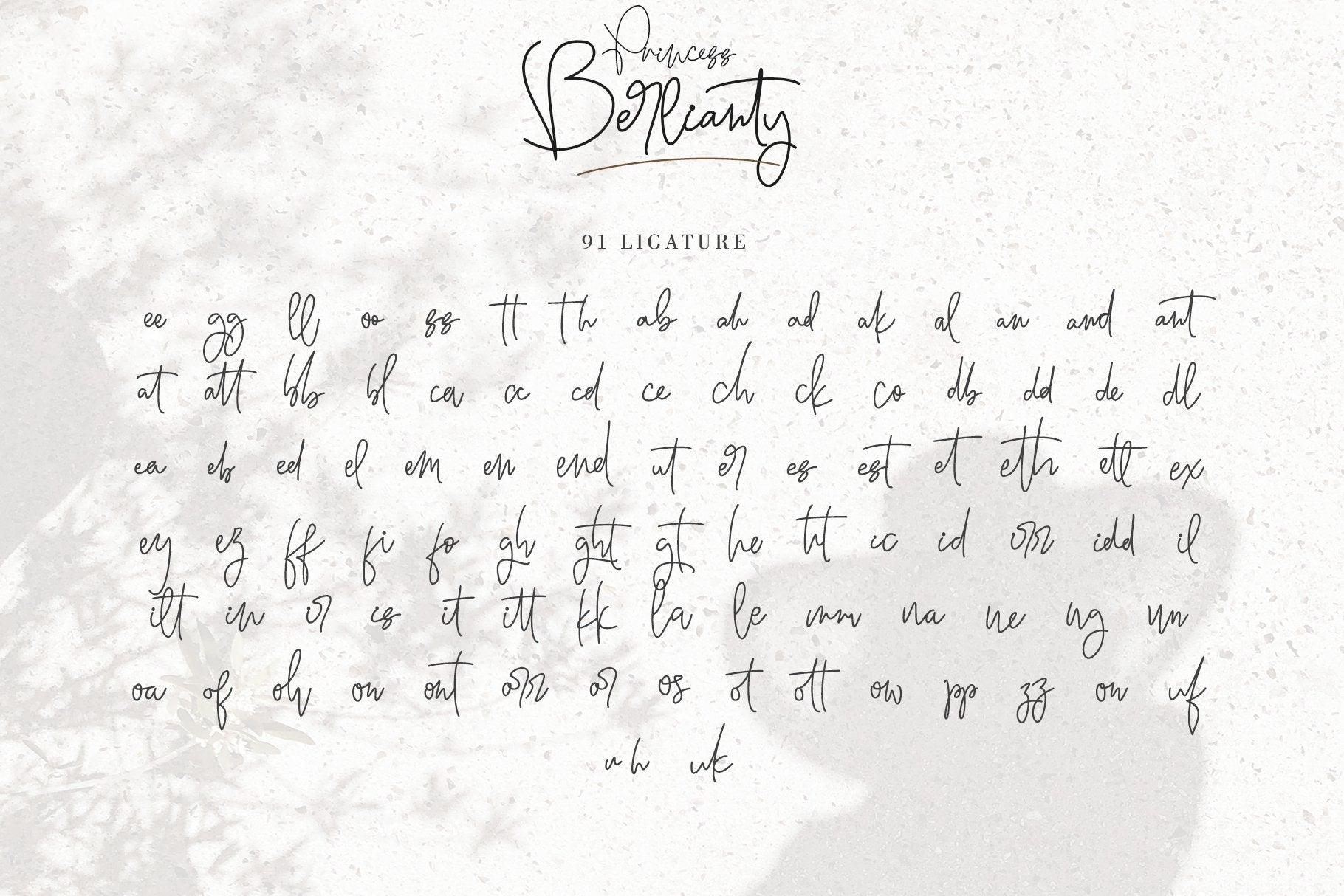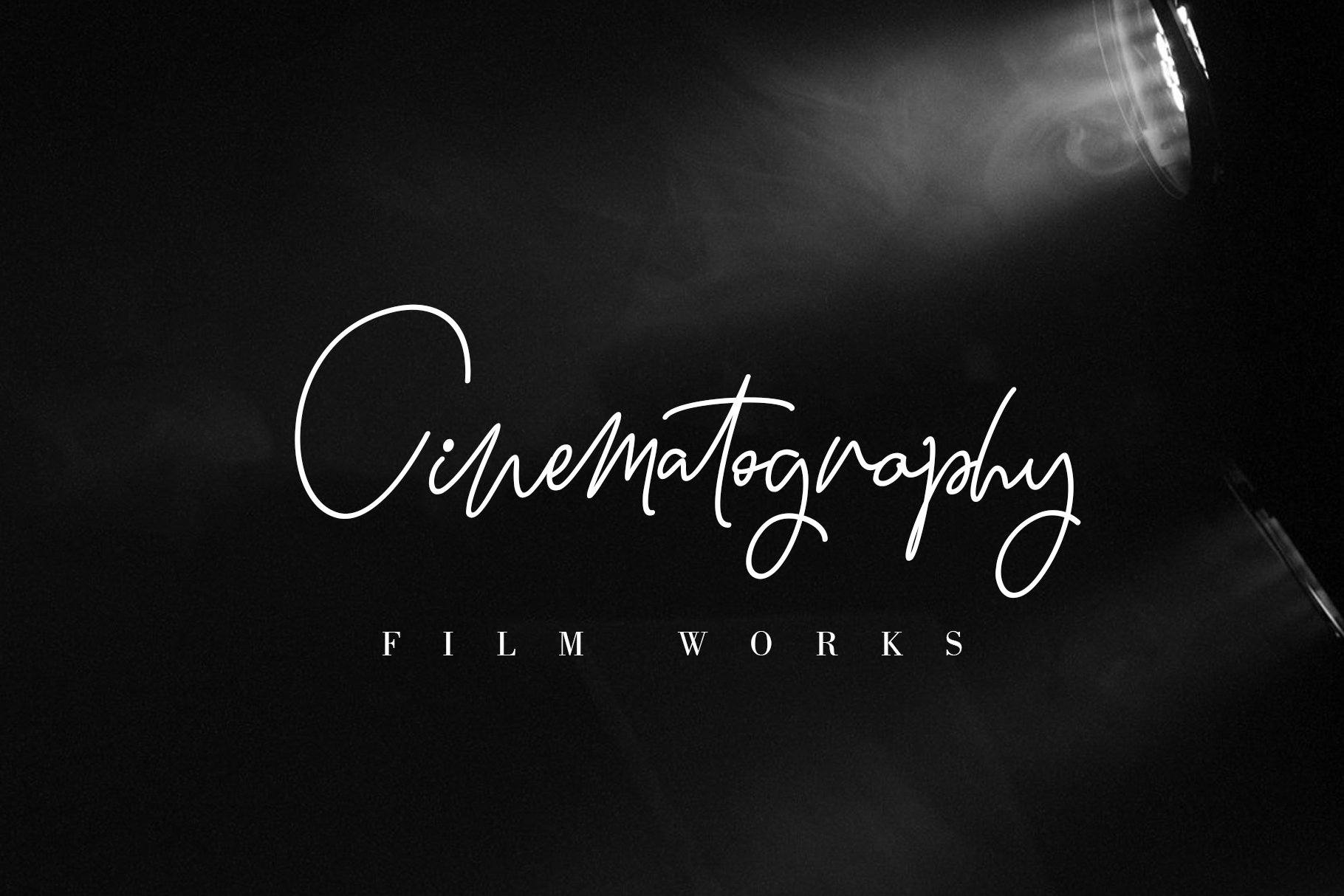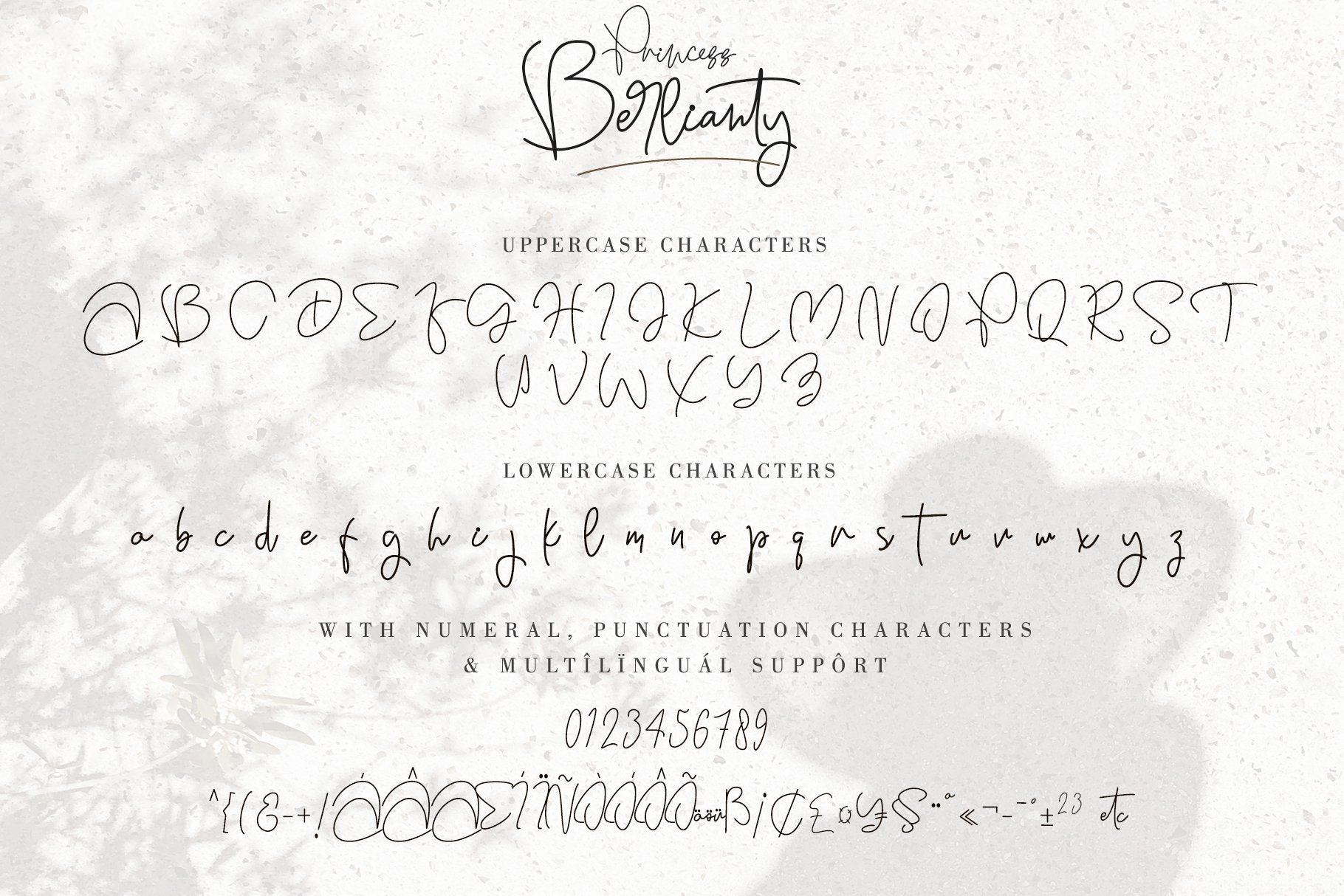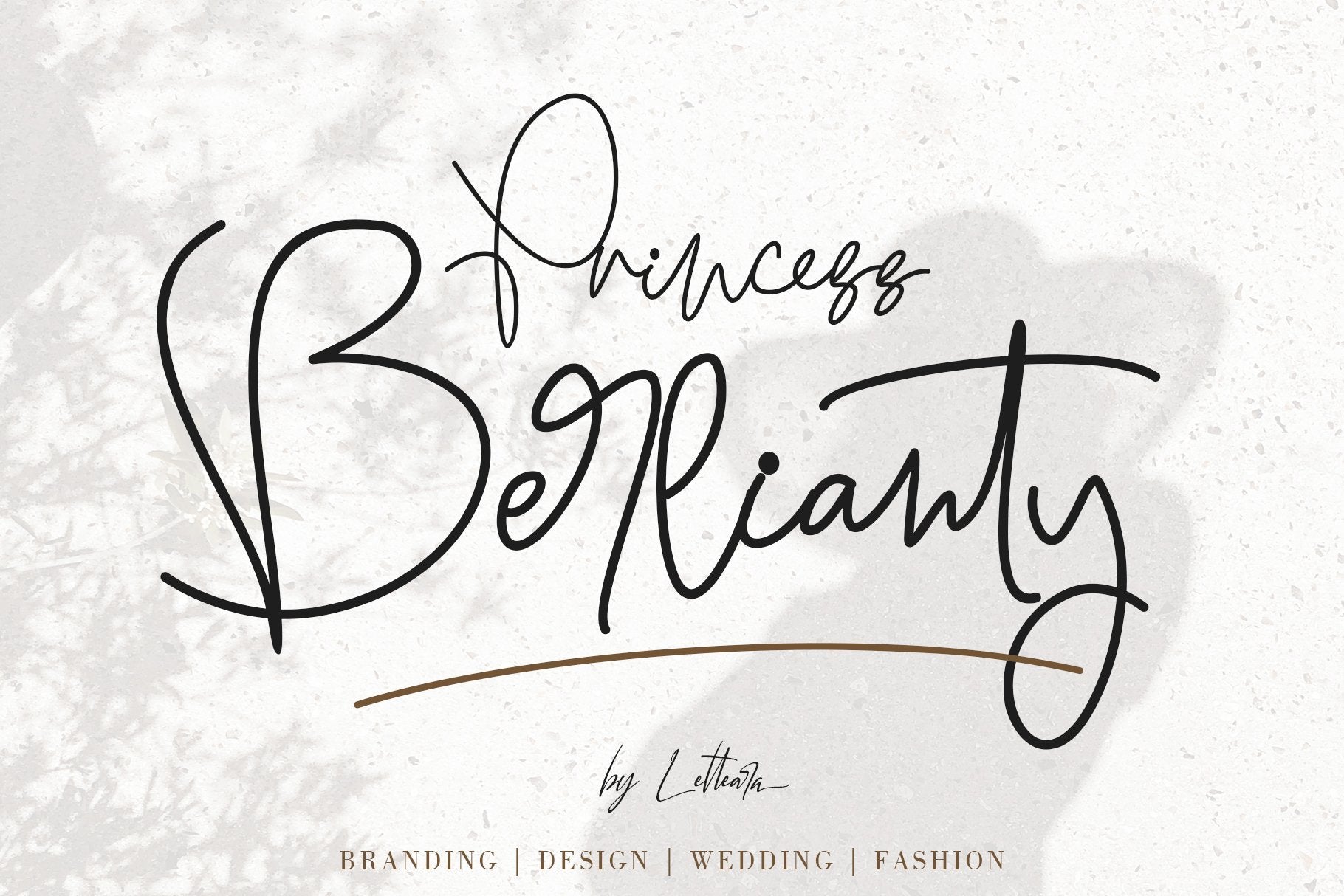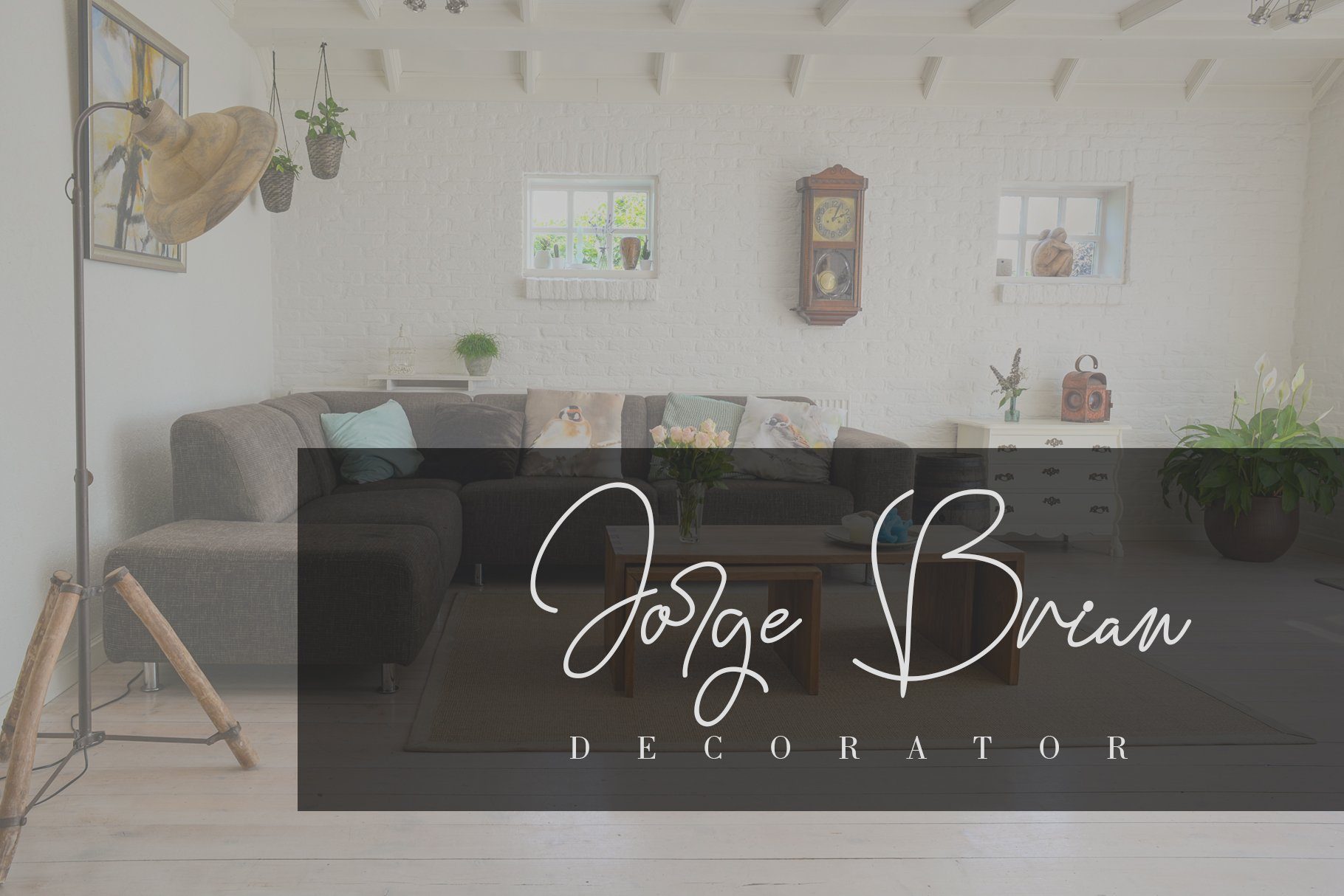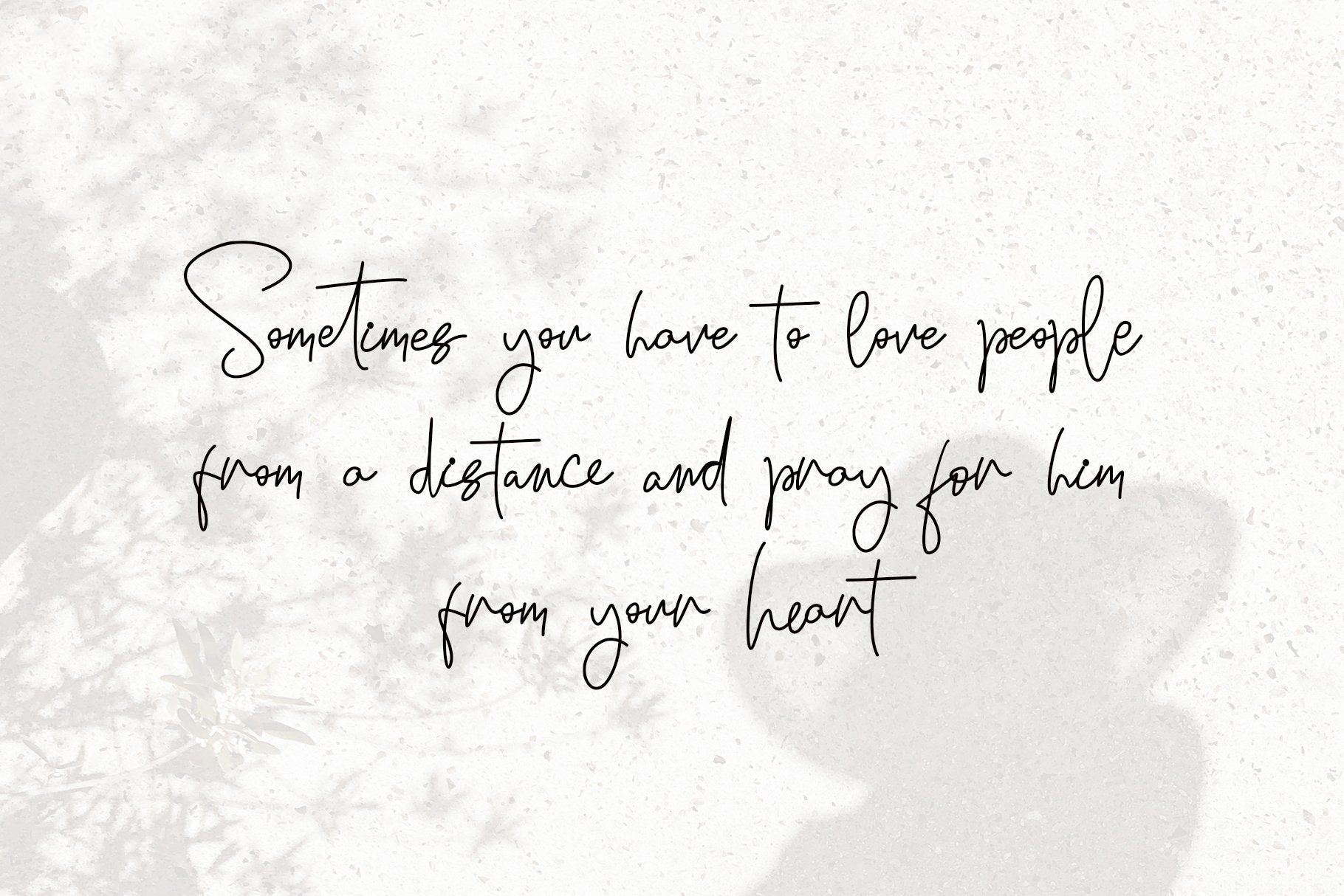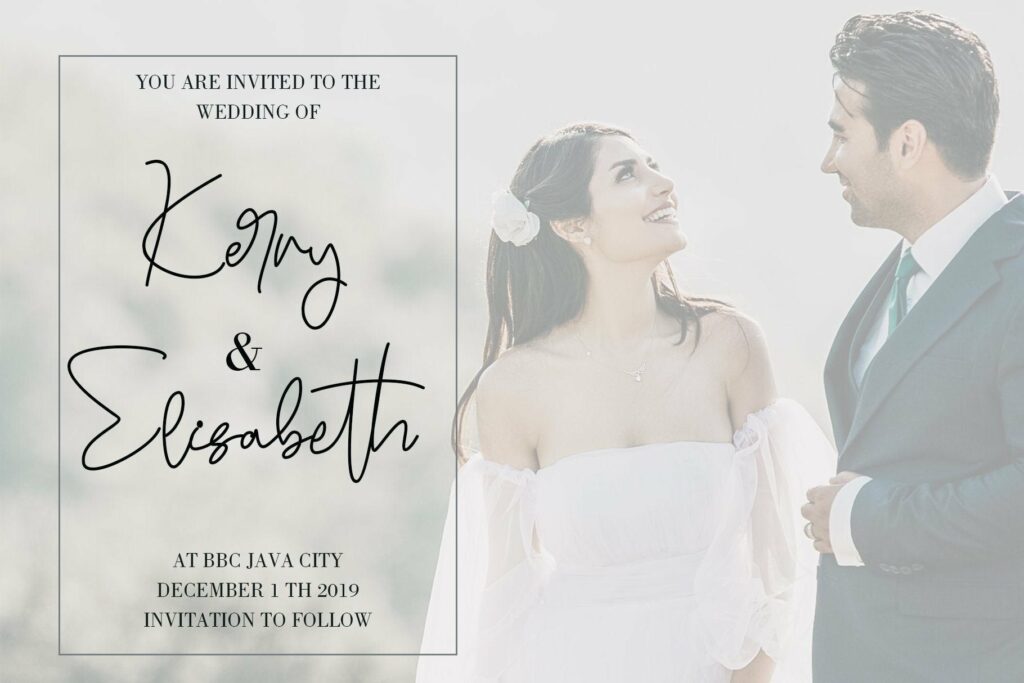
PRINCESS BERLIANTY
Princess Berlianty is a new modern calligraphy monoline script font. It has a classic and elegant touch and can be used for various purposes such as headings, logos, invitations, t-shirt designs, greeting cards, posters, labels, book covers, brochures ,quotes, headlines, titles, thumbnail youtube, and any other creative design. Features : Upper Case & Lowercase Numerals Punctuations (OpenType Standard) Accents (Multilingual characters) Ligatures Works on PC & Mac Simple installations Accessible in the Adobe Illustrator, Adobe Photoshop, Adobe InDesign, even works on Microsoft Word. don’t wait anymore, put it in your shopping basket 🙂 and follow me, because there will be many promos! Thanks for checking out my store, and feel free to get in touch if you have any questions!  Thank you 🙂 Our other products : BEST SELLER BLACK PINK SIGNATURE ANDORA BRIGITTA HEANFFE EIFFEL IN LOVE ( FONT TRIO) BLACK PINK SUMMER HONG KONG ANGEL MALEFICENT California Street BESTOWENS FAMILY